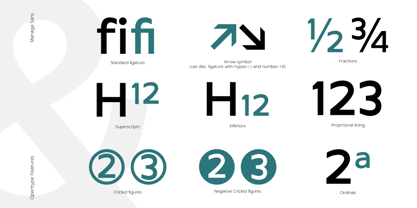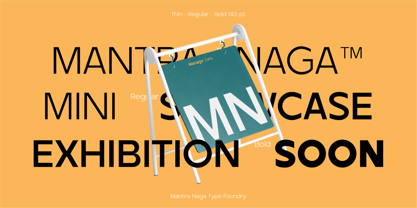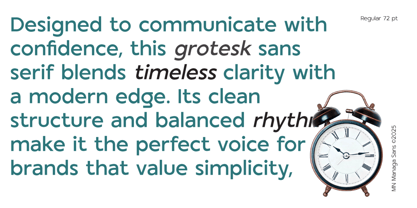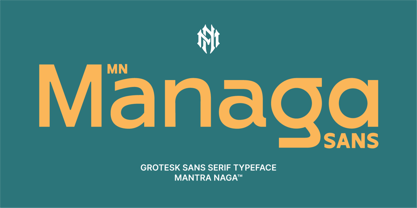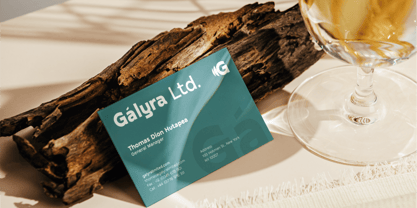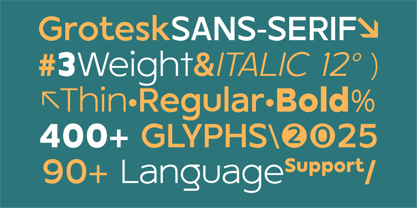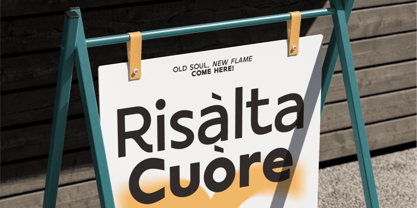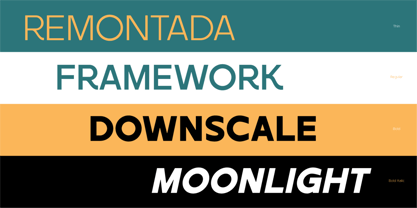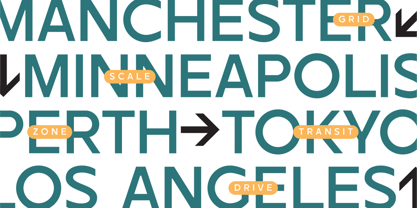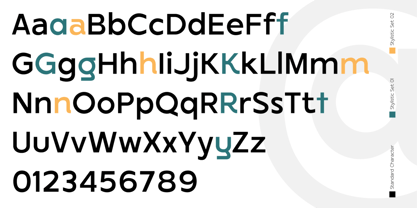
MN Managa Sans
by Mantra Naga Studio
The MN Managa Sans Font Family was designed by Fredo Eka Pratama and published by Mantra Naga Studio. MN Managa Sans contains 6 styles and family package options. More about this family
Managa Sans is a grotesk sans serif typeface that combines geometric simplicity with subtle humanist touches. Its design is defined by clean, proportional shapes with consistent stroke weight, while vertical stroke endings introduce a gentle humanist character. Perfect for both display/headlines and editorial or long-form text, Managa Sans suits modern, minimalist design needs.
It comes in 6 styles—Thin, Thin Italic, Regular, Italic, Bold, and Bold Italic—with over 400 glyphs, support for 94 languages, and 9 OpenType features.
As the second release in the Managa series (Managa stands for mantra naga), this font continues our vision of versatile, contemporary type design.
Designers: Fredo Eka Pratama
Foundry: Mantra Naga Studio